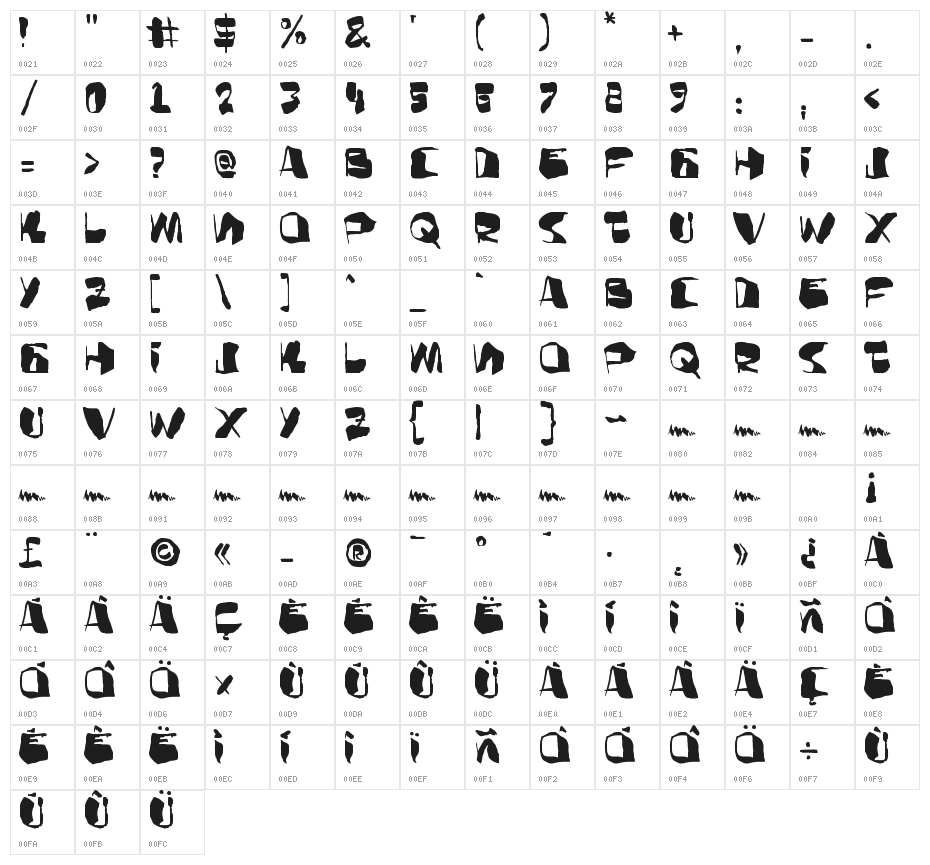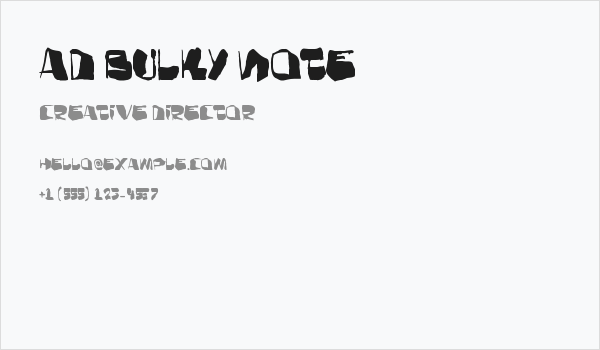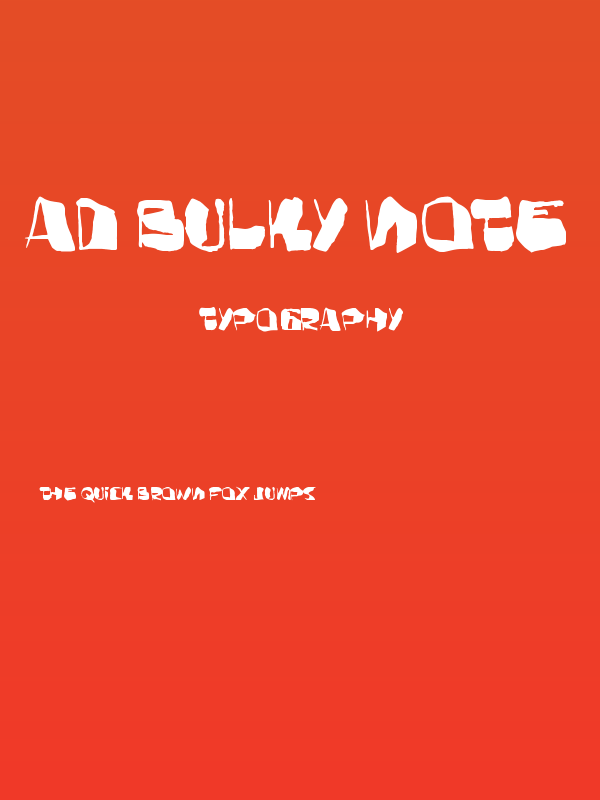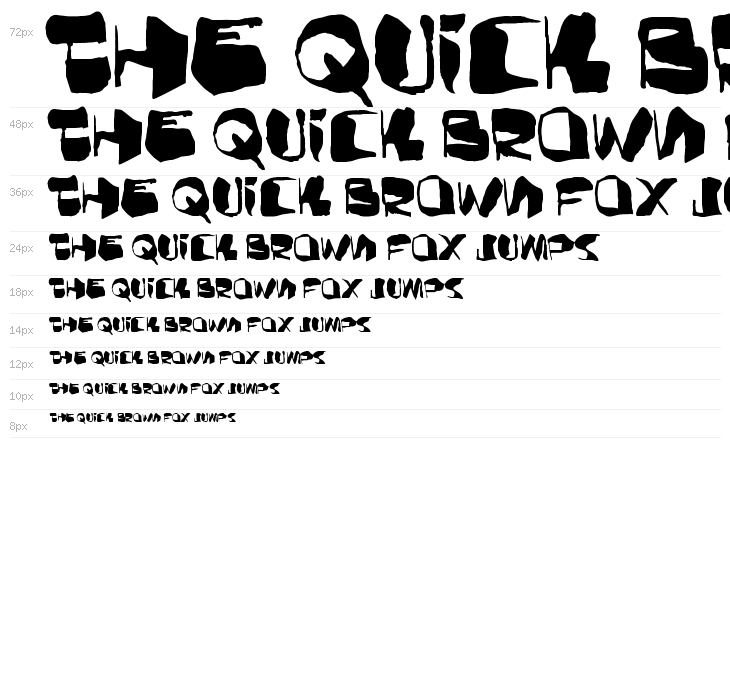
AD Bulky Note Font
AD Bulky Note Description
This font exhibits a bold and rugged appearance, characterized by its thick, uneven strokes and a hand-drawn aesthetic. The letters have a distressed, almost grunge-like texture, giving them a raw and organic feel. The uppercase and lowercase letters maintain a consistent style, with exaggerated curves and angles that create a sense of movement and energy. The numerals and special characters follow the same design principles, ensuring a cohesive look across all glyphs. This font's unique style makes it stand out, perfect for projects that require a bold statement.
| Proposed Projects | Ideal for poster designs, album covers, branding for edgy or alternative products, and any project needing a bold, artistic touch. |